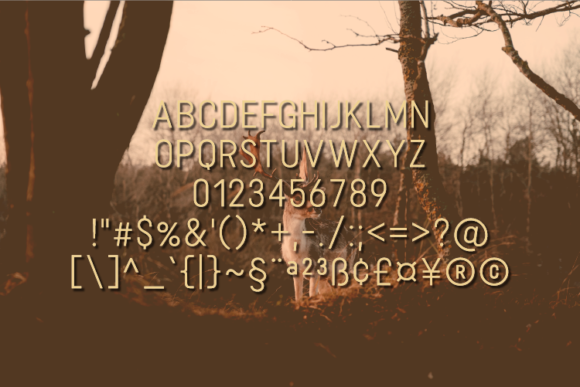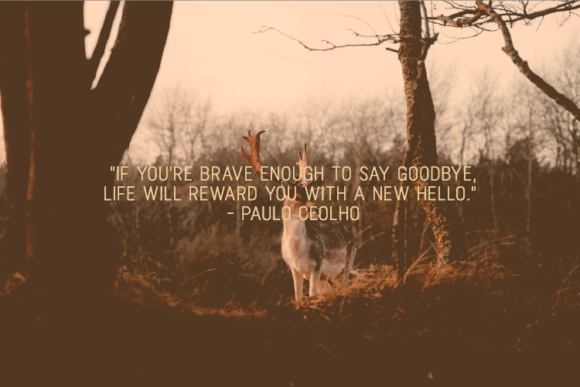
Unlock the Secret to Captivating Designs with Funlove Font
Have you ever stared at a blank page, waiting for the perfect font to spark your creativity? For many designers, this moment is a familiar feeling – the anticipation of bringing a vision to life. It’s in these moments that the right font can make all the difference. That’s where Funlove Font comes in – a sleek and modern sans serif font designed to elevate your designs and leave a lasting impression.
With its thin lettering and clean lines, Funlove Font is perfect for creating headings, invitations, logos, and more. Its futuristic touch adds a unique dimension to any design, setting it apart from the ordinary. As a designer, you know how valuable it is to have a versatile font in your toolkit – and Funlove Font delivers.
Key Features of Funlove Font
- Unique Characteristics: The font features a playful and whimsical design, with unique letterforms and flourishes that add a touch of personality to any text.
Review of “Funlove Font”
Overall, I have mixed feelings about the “Funlove Font”. On one hand, it has some great qualities that make it stand out. ✨ Its playful and whimsical feel is perfect for projects that require a lighthearted tone. It’s also highly legible, making it suitable for a wide range of applications.
- Unique and distinctive style that adds a touch of personality to designs
- High legibility, making it suitable for various applications
- Playful and whimsical feel that’s perfect for lighthearted projects
However, I do have some concerns about its limitations. ⚠️ The font can feel a bit over-the-top in certain contexts, which may make it difficult to use in more formal or professional settings. Additionally, the font’s weight and size may not be as consistent across different platforms and devices.
- May be too playful for formal or professional projects
- Weight and size inconsistencies across platforms and devices
Overall, I would recommend the “Funlove Font” for projects that require a fun and lighthearted tone. However, it may not be the best choice for more formal or professional applications.
Tips for Getting the Most Out of the Funlove Font
Use the Funlove Font for titles, headings, and emphasis in your designs.
Pair the Funlove Font with other playful fonts for a unique and eye-catching look.
Experiment with different font sizes and colors to add visual interest to your designs.
The Funlove Font is perfect for:
Party and event branding
Children’s book illustrations and design
Playful marketing and advertising campaigns